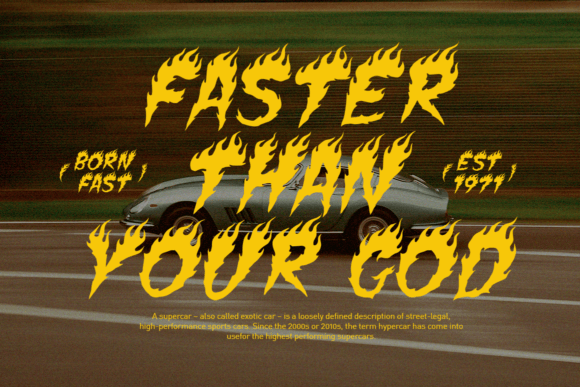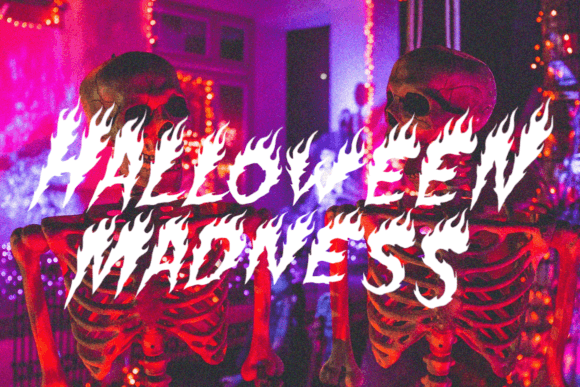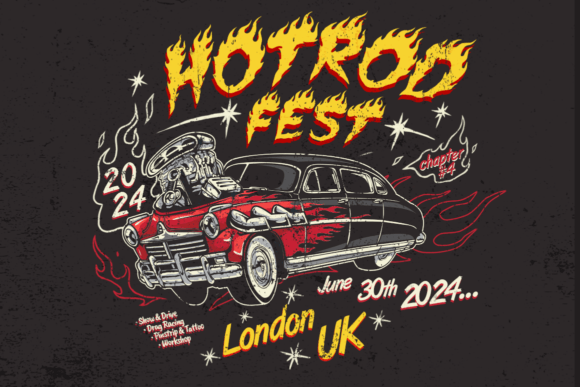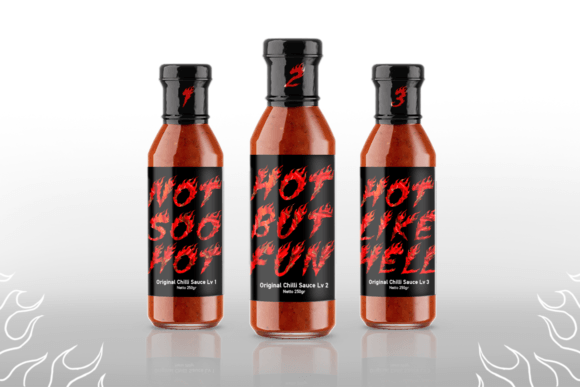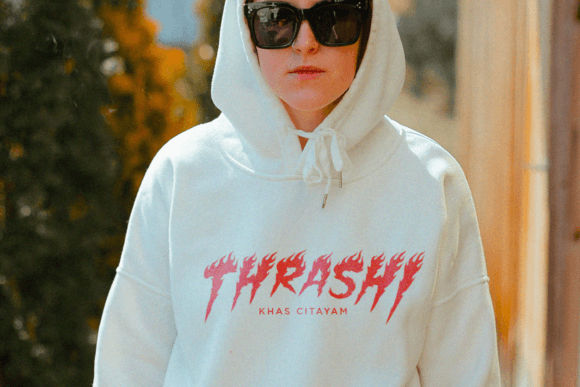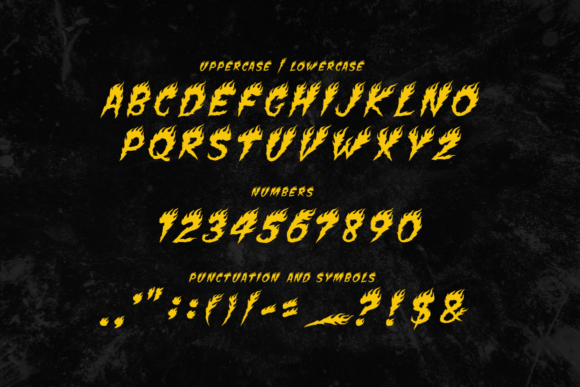
Introducing Flames Font: A Handcrafted Masterpiece for Bold Designs
Are you tired of using generic, cookie-cutter fonts that lack personality and flair? Look no further than Flames Font, a unique and captivating typeface that’s sure to add a touch of edginess to your designs. In this article, we’ll dive into the world of Flames Font, exploring its creation process, distinctive features, and the perfect use cases for this bold and eye-catching font.
The Making of Flames Font: A Labor of Love
Flames Font is not your average font. Each letter is specially handcrafted manually and digitalized with precision using Wacom and Photoshop. This meticulous process ensures that every letter has a distinct, one-of-a-kind feel that’s both natural and rough around the edges. The attention to detail is stunning, with the fire shape of each letter varying subtly from one another. This level of craftsmanship is a testament to the creator’s dedication to producing a truly exceptional font.
What Sets Flames Font Apart
So, what makes Flames Font stand out from the crowd? Here are a few key features that make it a standout addition to any designer’s toolkit:
- Handcrafted with love: Each letter is meticulously crafted by hand, giving Flames Font a unique, organic feel that’s hard to replicate with automated font creation tools.
- Natural and rough: The manual crafting process imbues Flames Font with a natural, rough quality that’s perfect for designs that require a bit of grit and texture.
- Perfect for bold designs: Flames Font is ideal for designs that need to make a statement. Its bold, fiery personality is sure to grab attention and leave a lasting impression.
Perfect Use Cases for Flames Font
So, when should you use Flames Font? Here are a few scenarios where this font truly shines:
- Automotive designs: Flames Font is a natural fit for automotive designs, particularly those with a bold, high-performance aesthetic.
- Horror and dark designs: The rough, edgy quality of Flames Font makes it perfect for horror-themed designs, adding an extra layer of eeriness and foreboding.
- Rough style designs: If you’re going for a rough, industrial look, Flames Font is an excellent choice. Its textured, handcrafted feel will add a level of authenticity to your design.
Tips for Using Flames Font Effectively
To get the most out of Flames Font, here are a few tips to keep in mind:
- Use it sparingly: Due to its bold, attention-grabbing nature, it’s best to use Flames Font sparingly. A little goes a long way, and you want to make sure your design doesn’t become overwhelming.
- Pair it with contrasting fonts: Flames Font works best when paired with contrasting fonts that provide a bit of visual balance. Try pairing it with a clean, sans-serif font to create visual interest.
- Experiment with colors and textures: Don’t be afraid to experiment with different colors and textures to really make Flames Font pop. Its rough, handcrafted quality lends itself well to bold, vibrant colors and textures.
Flames Font is a true masterpiece for designers and crafters looking to add a touch of edginess to their work. Its handcrafted, manual creation process and distinctive features make it a standout addition to any design toolkit. Whether you’re working on an automotive design, horror-themed project, or rough style design, Flames Font is sure to bring a level of boldness and personality that’s hard to replicate with other fonts. So why settle for generic, cookie-cutter fonts when you can add a touch of fire to your designs with Flames Font?